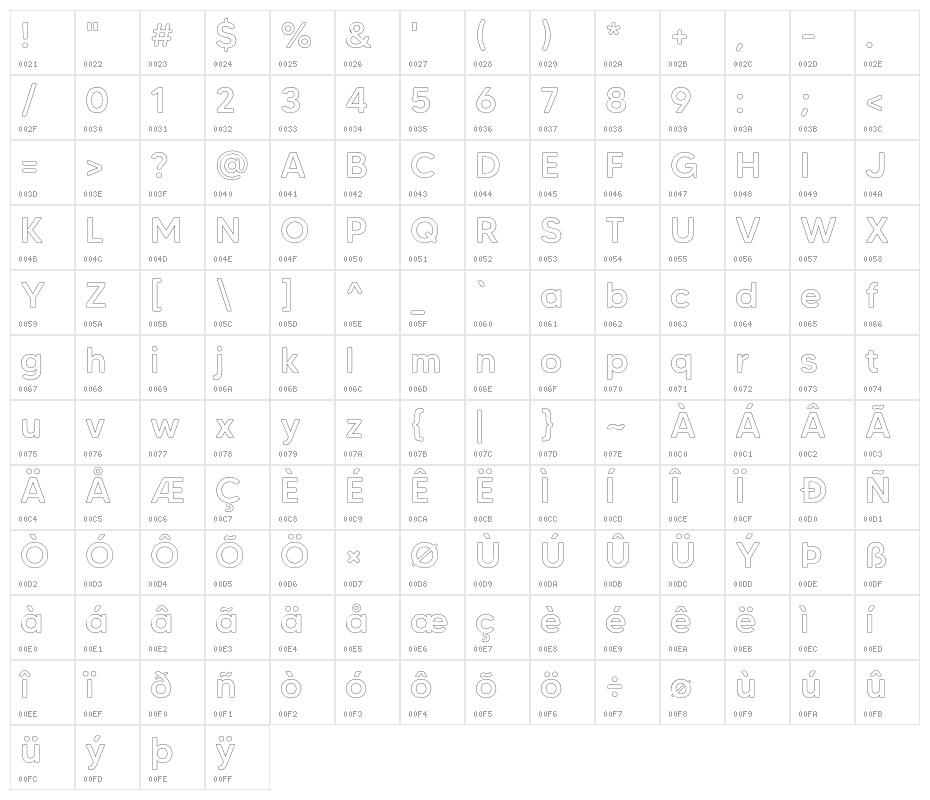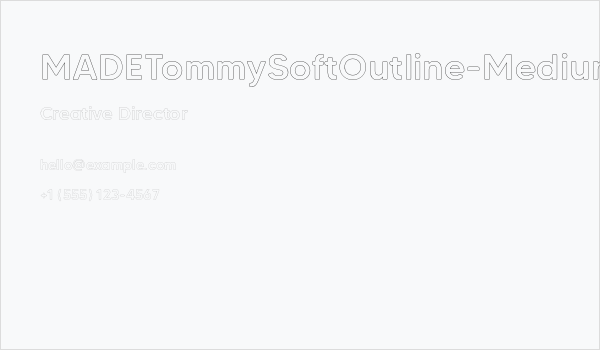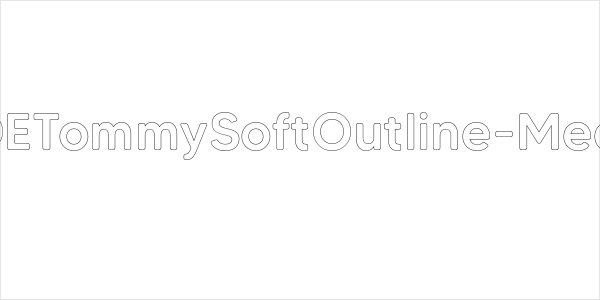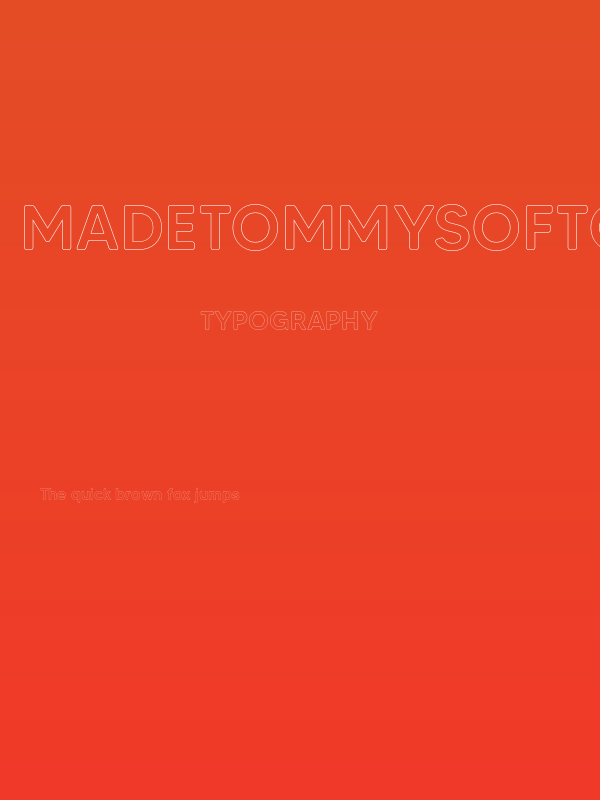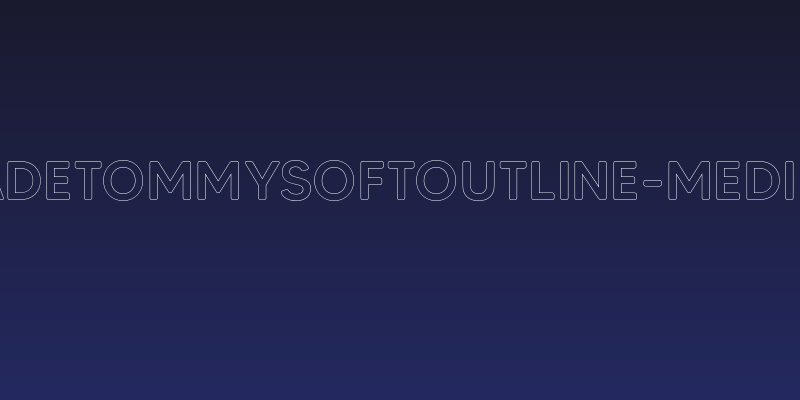
MADETommySoftOutline-Medium Font
MADETommySoftOutline-Medium Description
This font features a clean, modern outline style with a soft, rounded appearance. The characters are evenly spaced, providing a balanced and harmonious look. The uppercase and lowercase letters maintain a consistent height, contributing to its uniformity. The numerals and special characters follow the same design principles, ensuring a cohesive overall appearance. The font's outline nature gives it a lightweight feel, making it suitable for designs that require a subtle yet stylish touch. Its simplicity and clarity make it versatile for various applications.